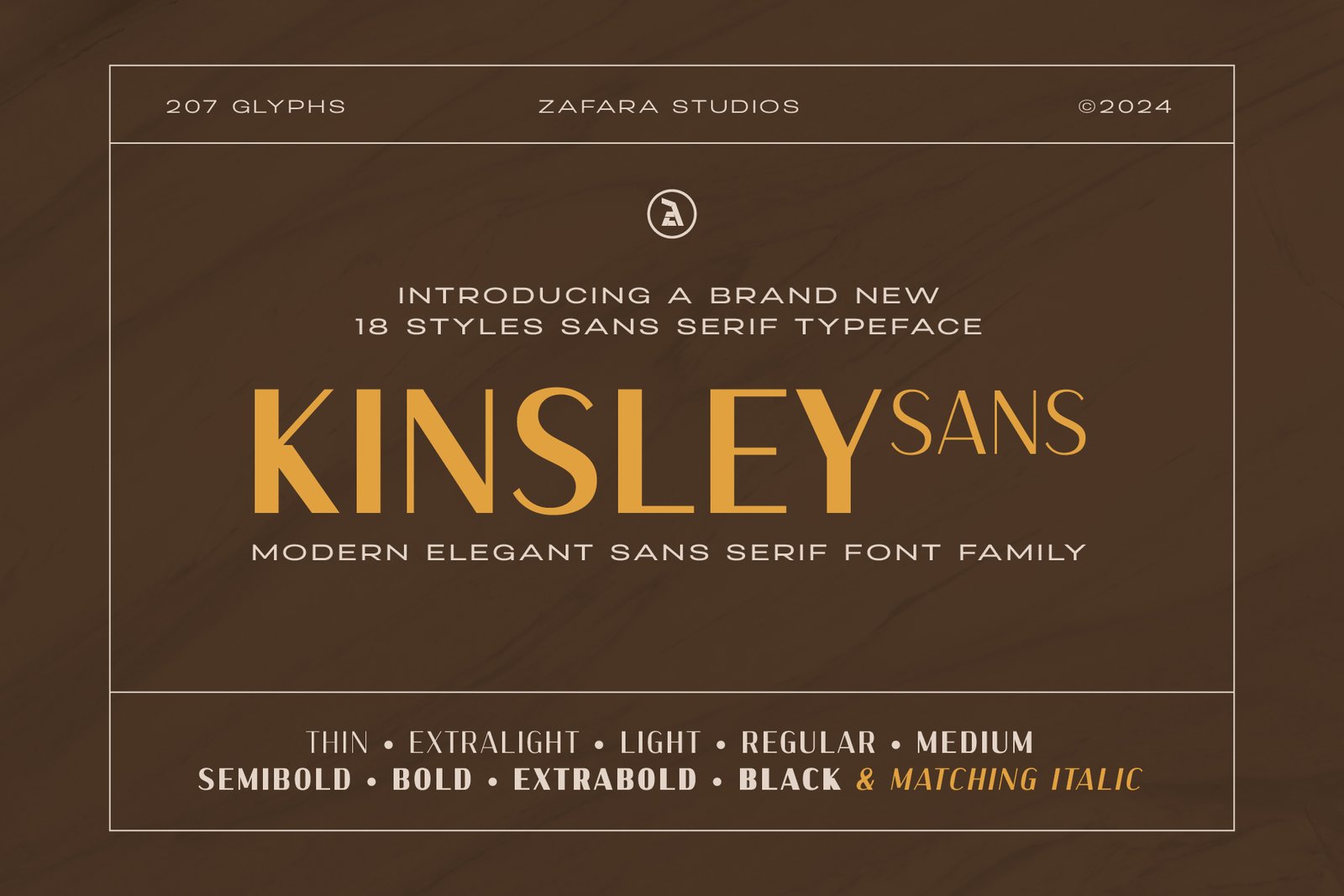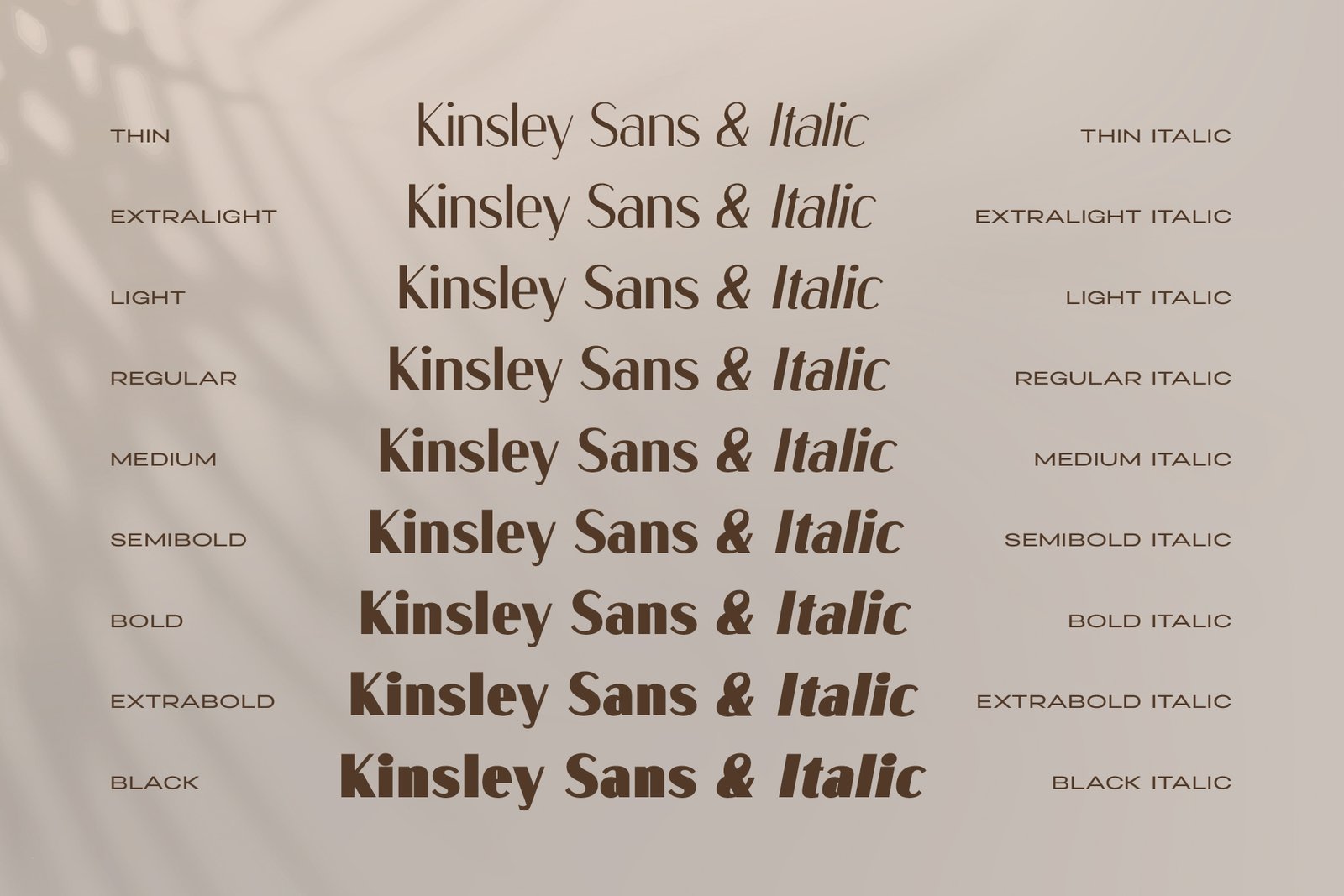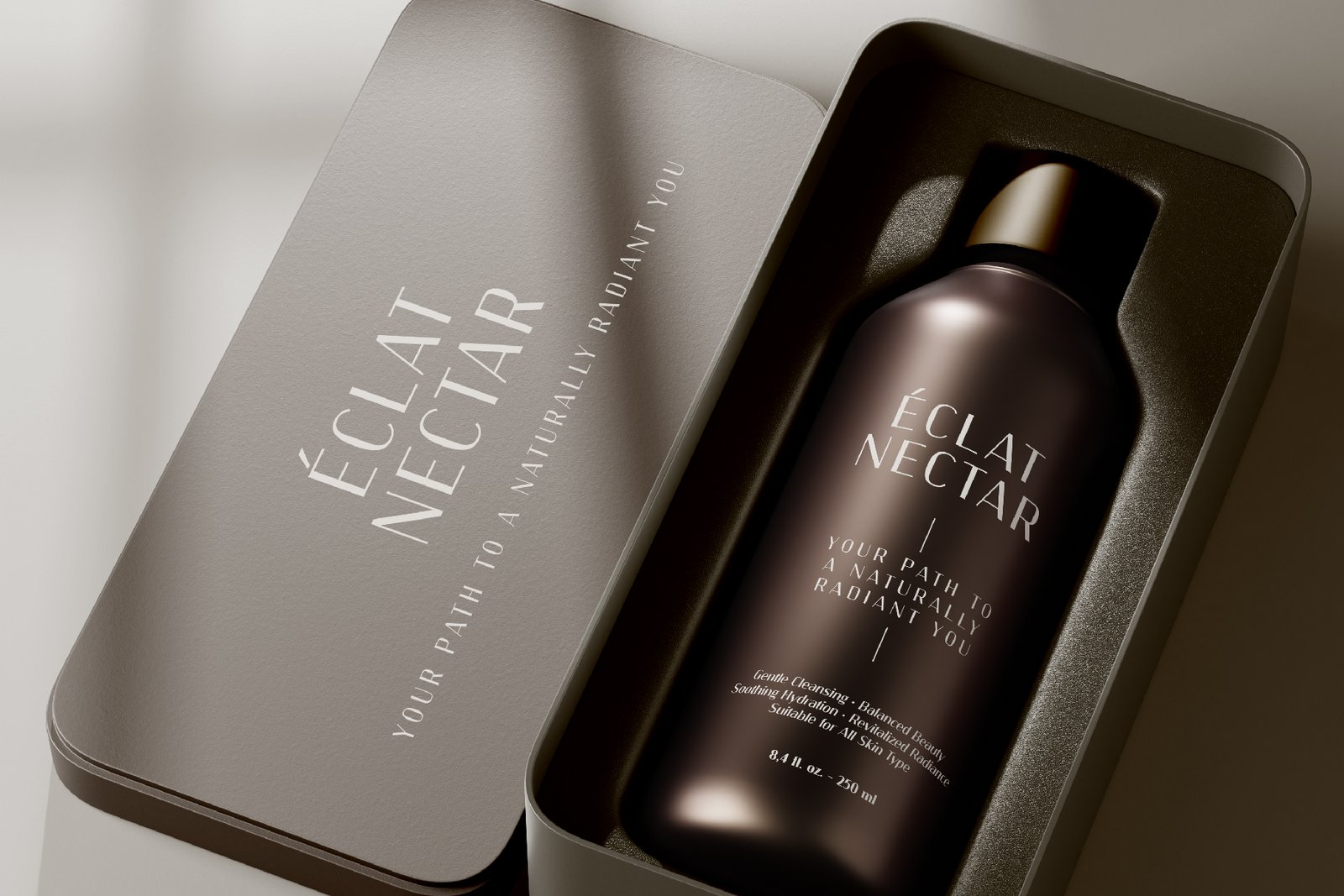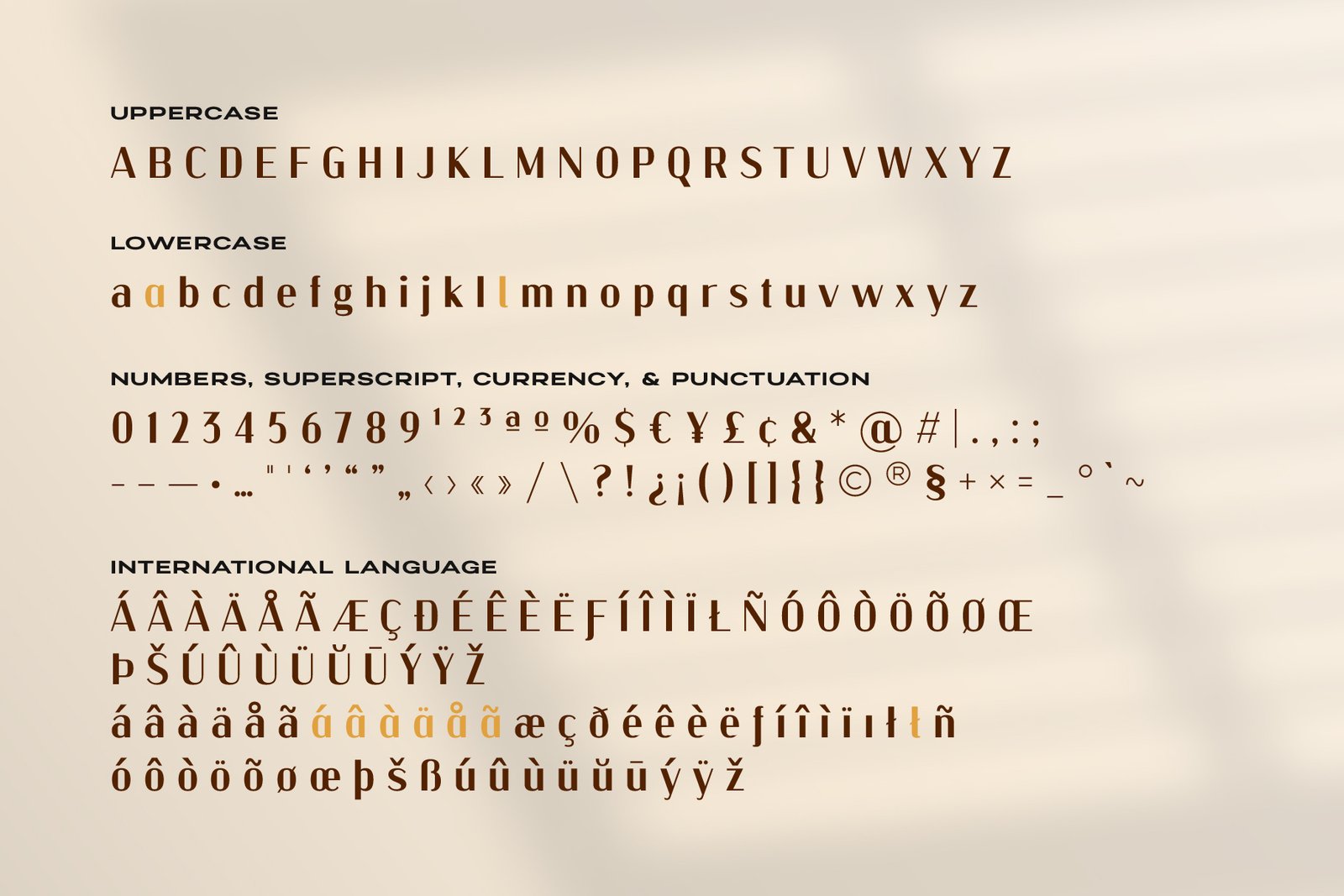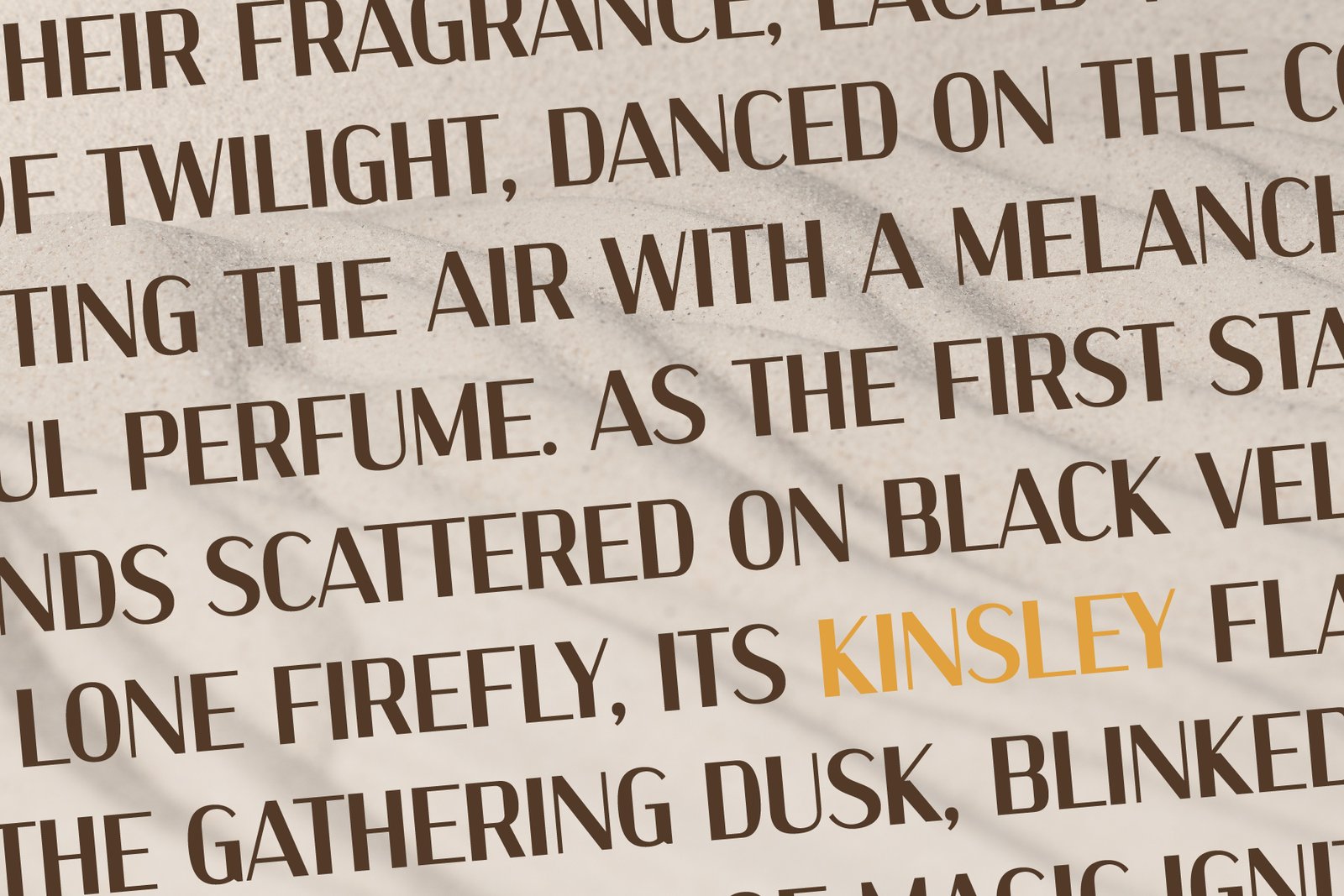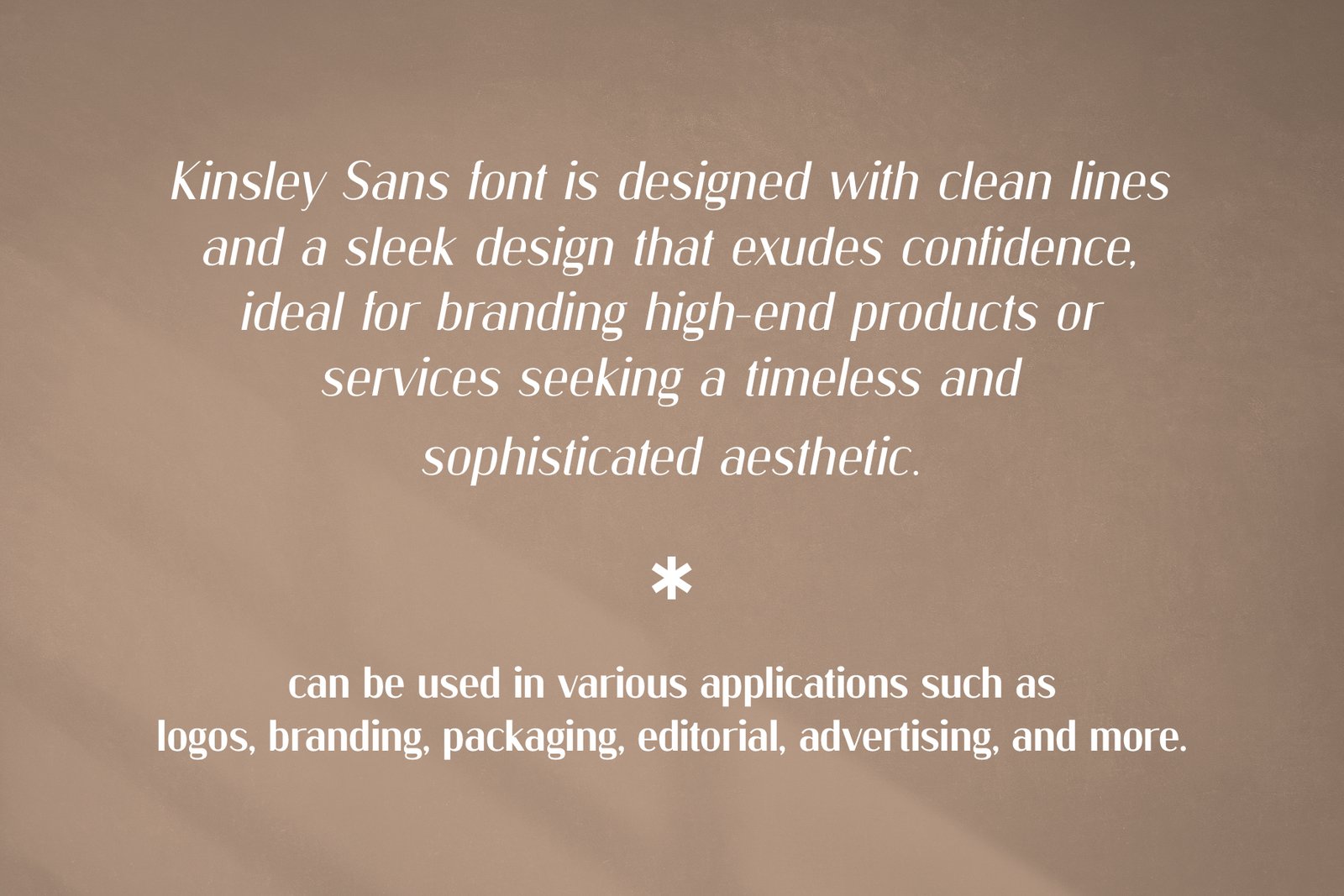
Kinsley Sans font family showcase featuring 18 styles, including thin, extralight, light, regular, medium, semibold, bold, extrabold, black, and matching italics.
Kinsley Sans font styles showing the difference between thin, extralight, light, regular, medium, semibold, bold, extrabold, and black weights, both in regular and italic.
Luxury product packaging for "Éclat Nectar" with Kinsley Sans font used on the bottle and box, demonstrating a premium aesthetic.
All available characters for Kinsley Sans, including uppercase, lowercase, numbers, punctuation, currency symbols, and international language glyphs.
Kinsley Sans font used in a paragraph of text, with one word highlighted in yellow, demonstrating its readability in longer form.
A descriptive text about Kinsley Sans font, stating it's designed with clean lines and is ideal for branding high-end products seeking a timeless aesthetic.
Kinsley Sans font showcasing a mix of different weights and colors to highlight various words like "Rosewater," "Hyaluronic Acid," and "Radiance."
Kinsley Sans font family showcase featuring 18 styles, including thin, extralight, light, regular, medium, semibold, bold, extrabold, black, and matching italics.
Kinsley Sans font styles showing the difference between thin, extralight, light, regular, medium, semibold, bold, extrabold, and black weights, both in regular and italic.
Luxury product packaging for "Éclat Nectar" with Kinsley Sans font used on the bottle and box, demonstrating a premium aesthetic.
All available characters for Kinsley Sans, including uppercase, lowercase, numbers, punctuation, currency symbols, and international language glyphs.
Kinsley Sans font used in a paragraph of text, with one word highlighted in yellow, demonstrating its readability in longer form.
A descriptive text about Kinsley Sans font, stating it's designed with clean lines and is ideal for branding high-end products seeking a timeless aesthetic.
Kinsley Sans font showcasing a mix of different weights and colors to highlight various words like "Rosewater," "Hyaluronic Acid," and "Radiance."
Kinsley Sans Font Family is a sleek, confident, and professional modern elegant sans serif typeface. Meticulously designed with exceptionally clean lines and a sophisticated aesthetic, it perfectly captures the essence of luxury, making it ideal for branding high-end products or services seeking a timeless look. With 18 distinct styles across 9 weights (from Thin to Black) and matching italics. Kinsley Sans Font Family offers comprehensive versatility for any design project requiring clarity and elegance. This expansive family is perfectly suited for various applications such as distinctive logos, luxury packaging, high-end editorial design, professional advertising campaigns, and website branding.